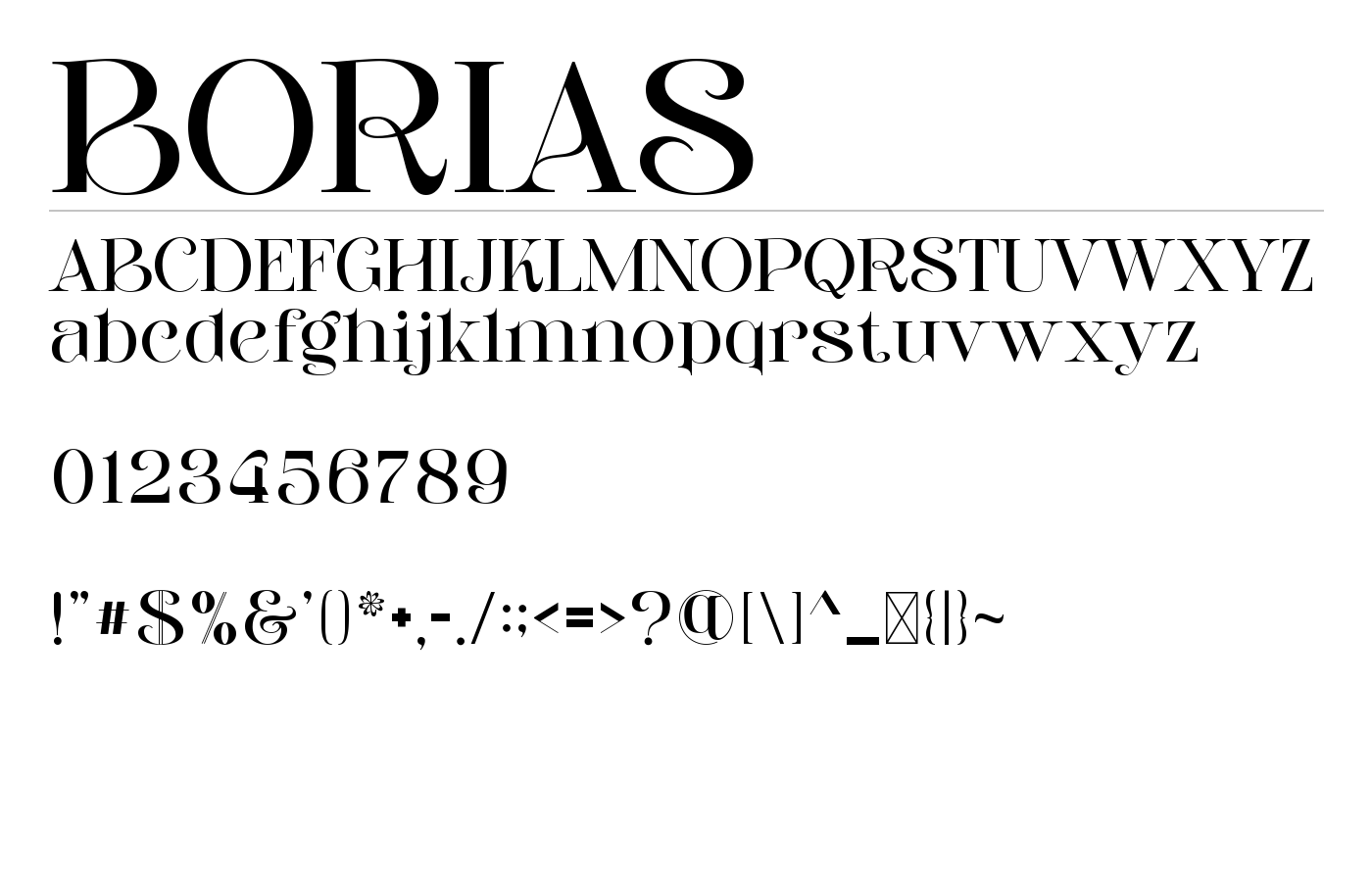
BORIAS is a stylish serif font that combines elegance with a modern twist, featuring high contrast between thick and thin strokes and unique, artistic letterforms that add personality to each character. Its tall, refined design with delicate, bracketed serifs makes it ideal for luxury branding, editorial headlines, and sophisticated logos where a touch of flair and distinction is desired. This font brings a graceful yet contemporary feel to design projects, perfect for fashion, upscale packaging, and any context that calls for an eye-catching and refined look.
BORIAS Font
About BORIAS Font